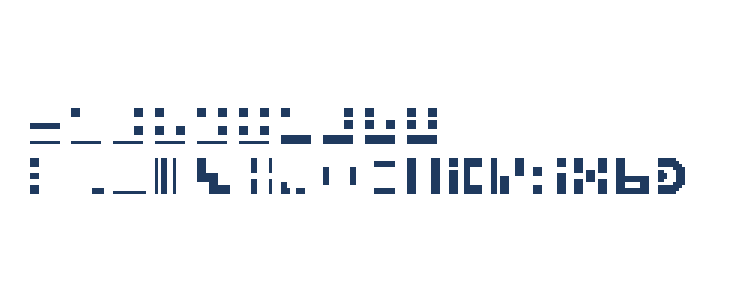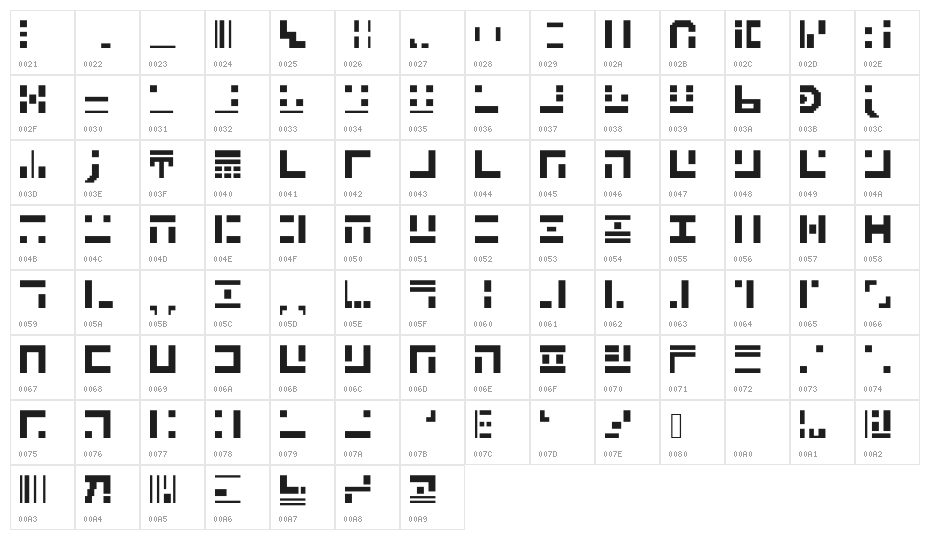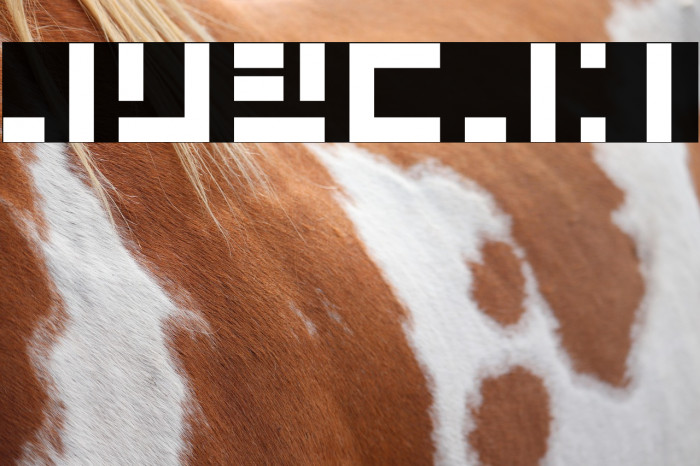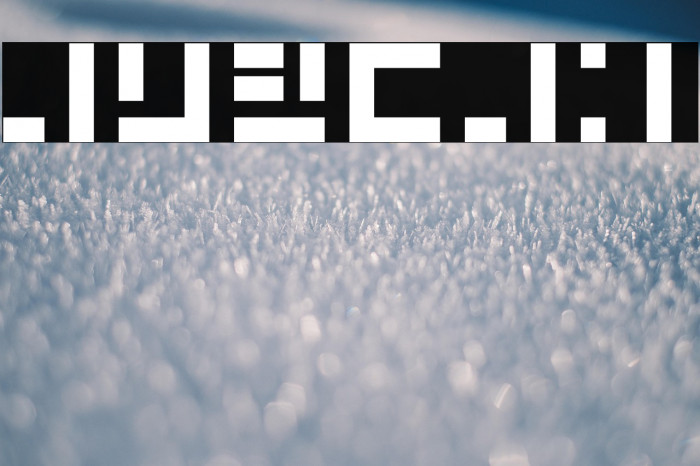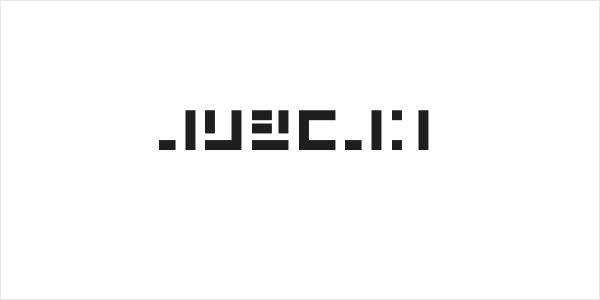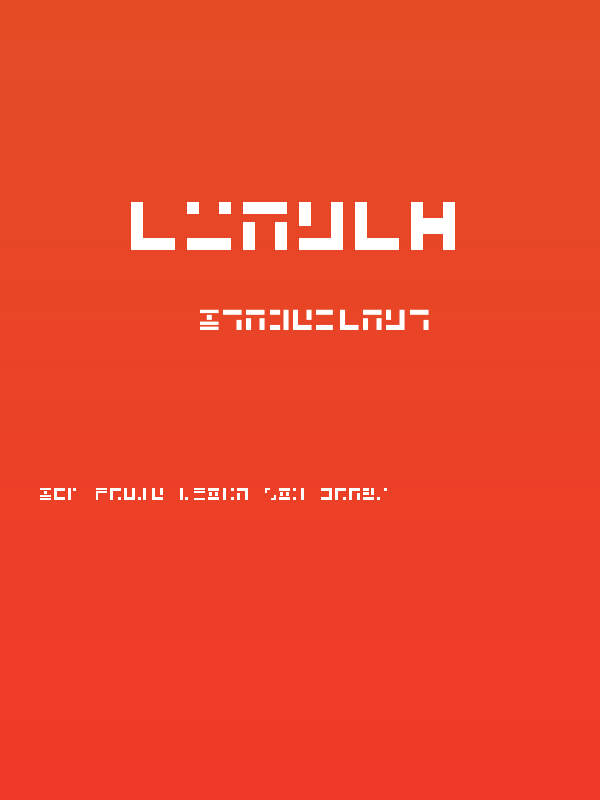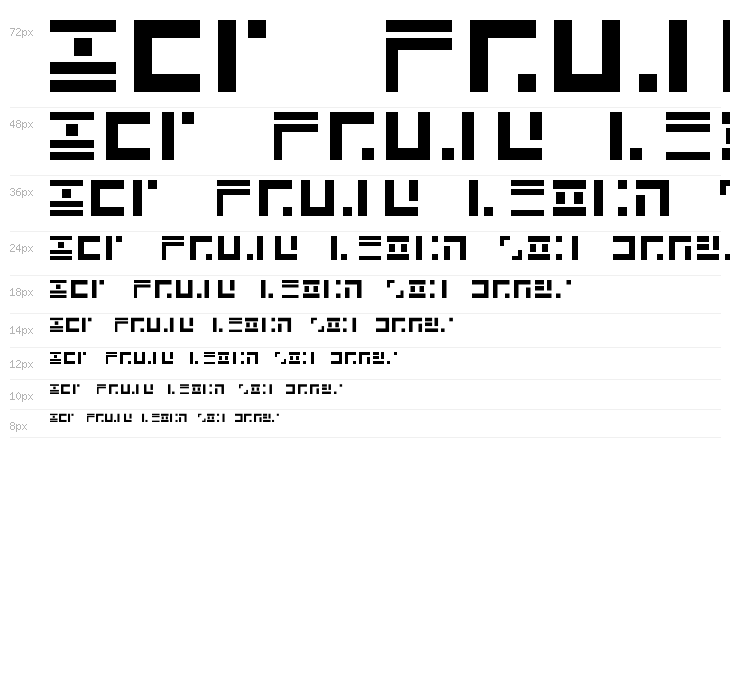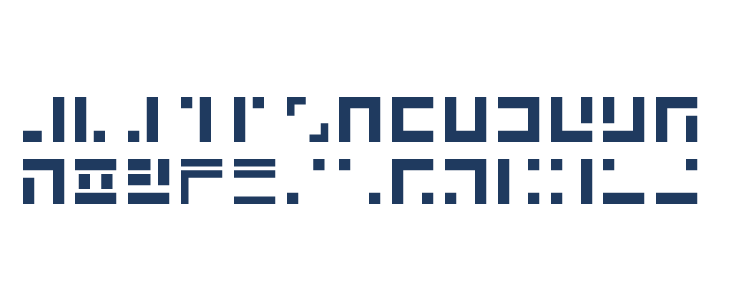
alphax Font
alphax Description
This font features a highly geometric and abstract design, characterized by its blocky and angular shapes. Each character is constructed from a series of straight lines and right angles, creating a futuristic and digital aesthetic. The font lacks traditional curves and serifs, opting instead for a minimalist and modern look. The uniformity in line thickness across all characters contributes to its cohesive appearance. This style is reminiscent of digital or pixelated text, often used in contexts that require a tech-savvy or avant-garde feel.
| Use Case | Logos, Headlines, Digital Interfaces |
| Proposed Projects | Ideal for digital art projects, tech branding, video game interfaces, and sci-fi themed designs. |